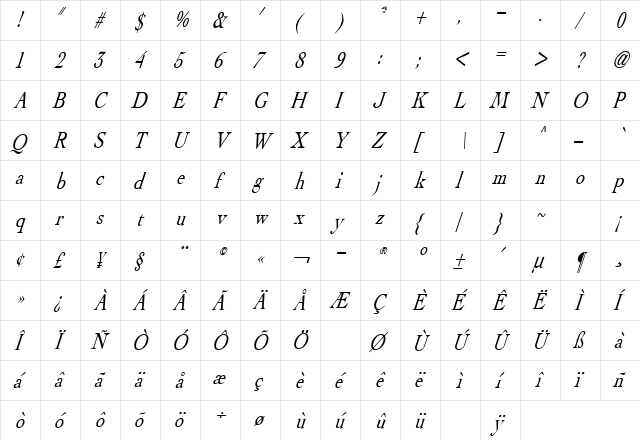
Albatross Italic
Design Context for Albatross Typeface
Albatross offers clean, dependable letterforms without strong stylistic allegiance, making it a practical choice for designers who need flexibility. The slanted form adds forward momentum and visual energy.
Pro Tip: Try Albatross for annotation and caption copy alongside an upright companion — the contrast in angle creates a dynamic but ordered typographic system.